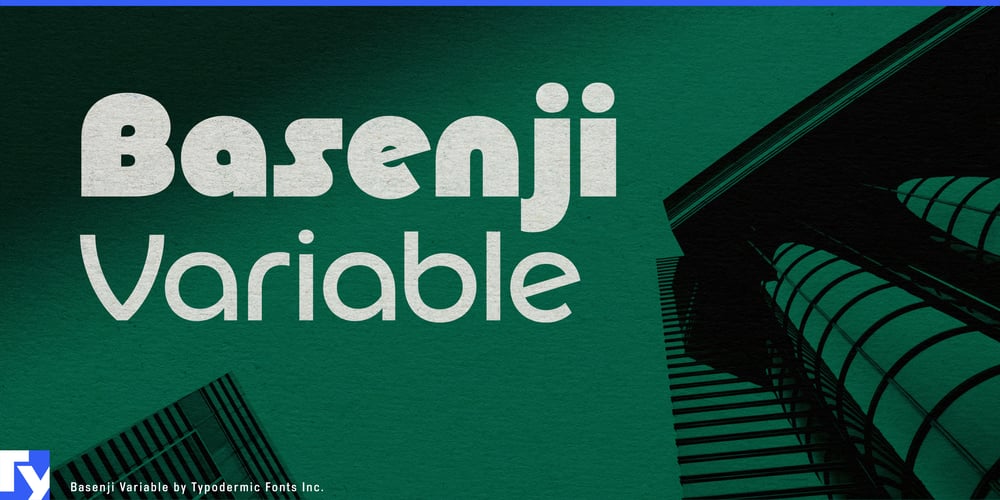
Basenji Variable Font Family was designed by Ray Larabie and published by Typodermic. Basenji Variable contains 1 styles and family package options. Introducing Basenji Variable, a cutting-edge typeface that marries the charm of 1970s geometric design with the power of modern font technology. This innovative font family builds on the legacy of iconic designs like Rondo, Pump, Bauhaus, and Blippo, while offering unprecedented flexibility for today’s designers.At the heart of Basenji Variable is its advanced variable font technology, featuring both weight and slant axes. This means you’re no longer constrained by preset styles. Want a weight that sits precisely between Regular and Semi-Bold? Or perhaps a slant that’s more subtle than a full italic? Basenji Variable puts that power in your hands, allowing you to fine-tune your typography with pixel-perfect precision. This extraordinary versatility opens up a world of creative possibilities. Create responsive web designs that adjust in real-time, craft unique, eye-catching headlines tailored to your exact specifications, and experiment with subtle variations to achieve the perfect typographic balance. All of this is possible from a single, efficient font file, streamlining your workflow while expanding your creative horizons.Basenji Variable doesn’t just nod to the past; it embraces the future of typography. Its extensive language support covers most Latin-based European languages, Vietnamese, Greek, and a wide range of Cyrillic-based writing systems, making it an ideal choice for global branding and multilingual projects. For those who prefer traditional font formats, a conventional version of Basenji with separate font files is also available. However, Basenji Variable offers unparalleled creative control in a more efficient package.Experience the perfect fusion of retro-inspired design and cutting-edge font technology. With Basenji Variable, you’re not just choosing a typeface—you’re unlocking a new dimension of typographic expression.